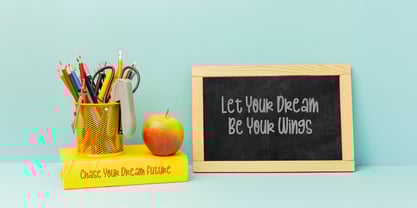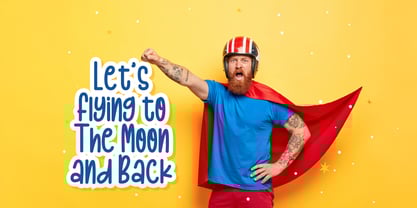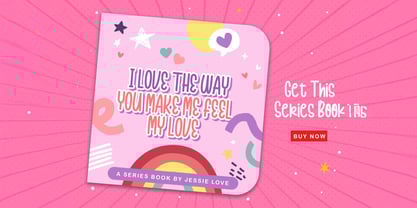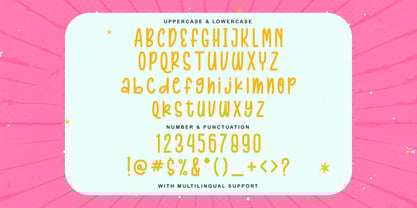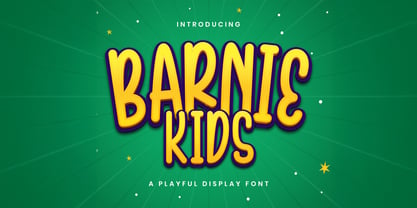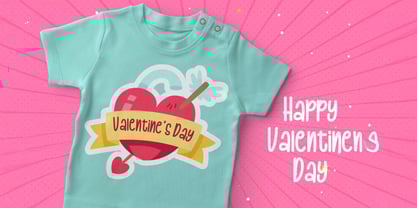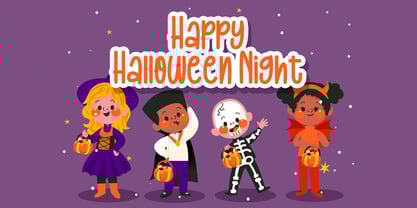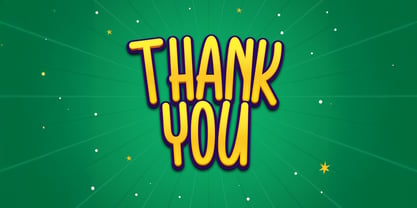
The Barnie Kids Font Family was designed by Virgiawan Listanto and published by Stringlabs Creative Studio. Barnie Kids contains 1 styles. More about this family
Barnie Kids is a bright and bouncy display font made to spark smiles! With its chunky shapes, playful curves, and joyful energy, Barnie Kids is perfect for designs that speak to children, creativity, and fun. Whether you’re working on kids' books, party invitations, toy packaging, or colorful branding, Barnie Kids brings a lively, friendly feel that’s full of imagination.